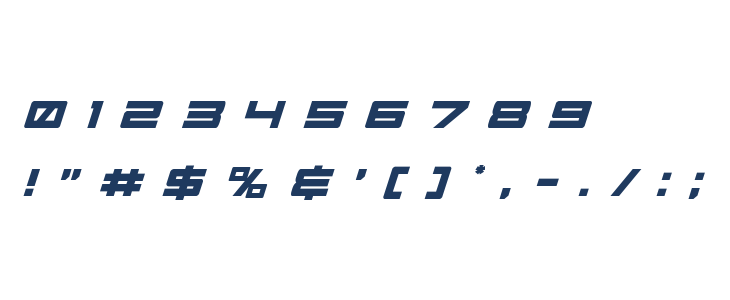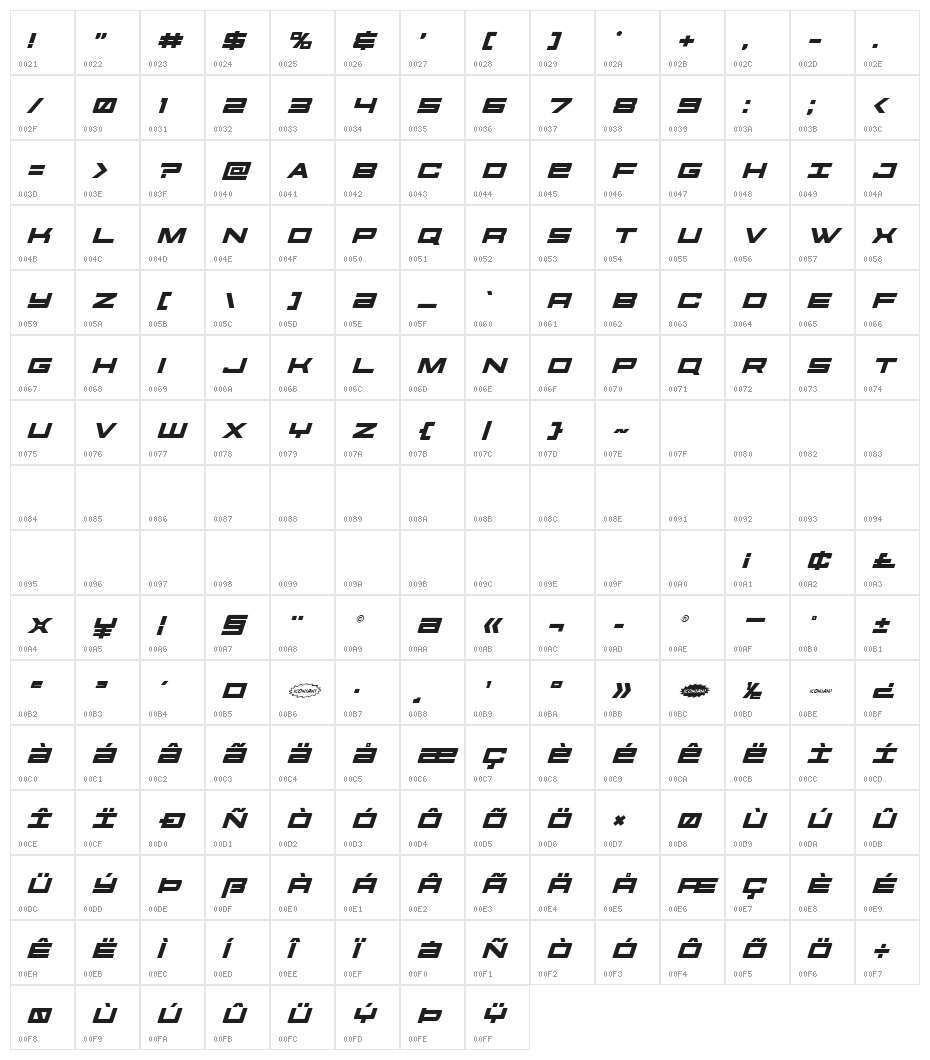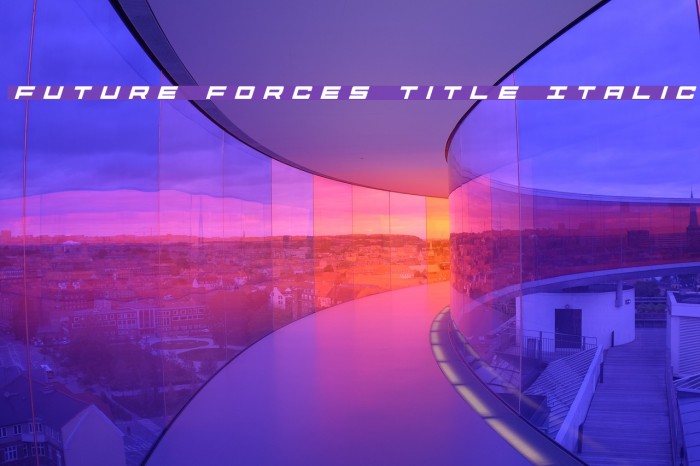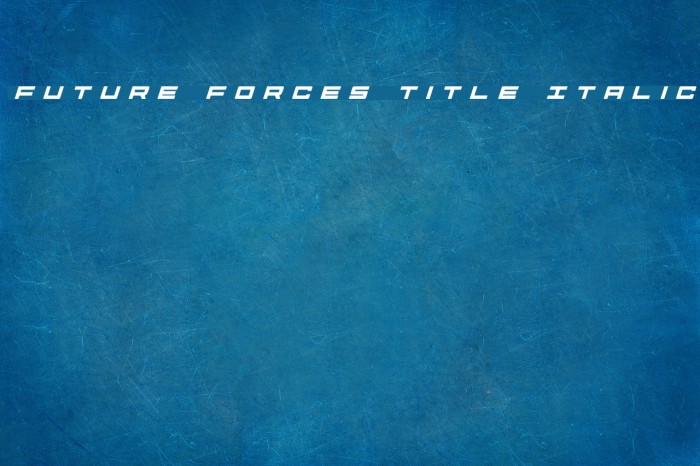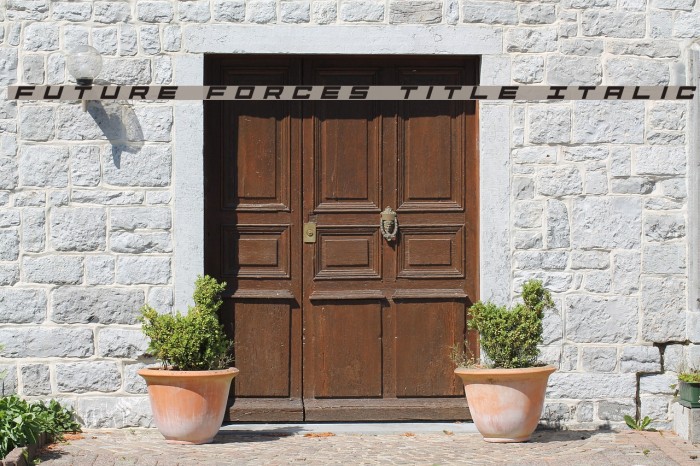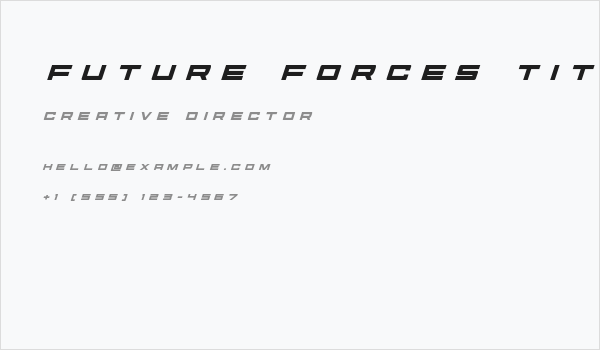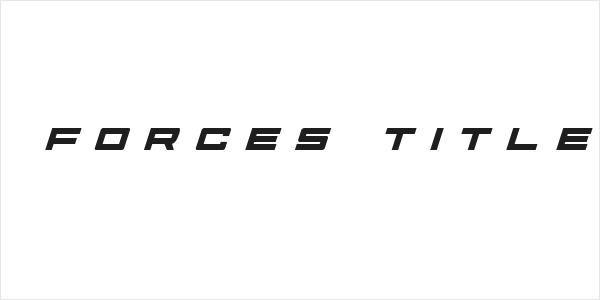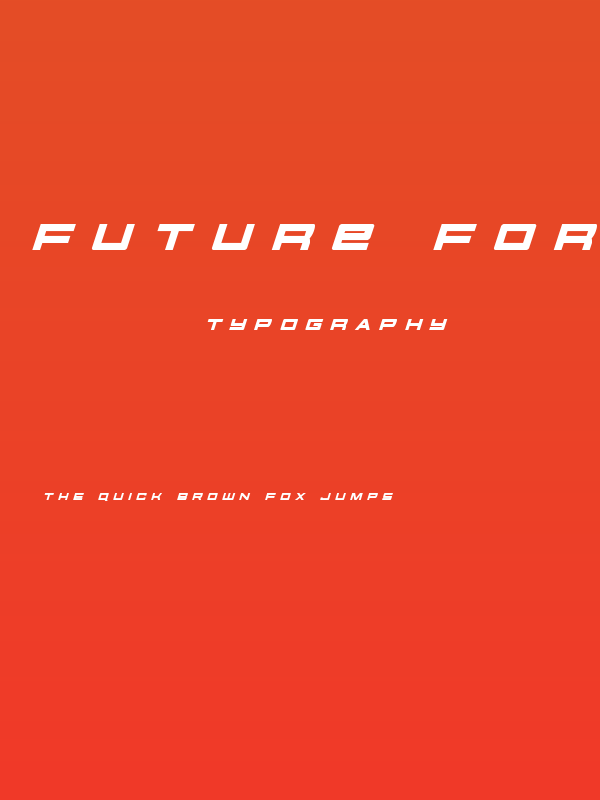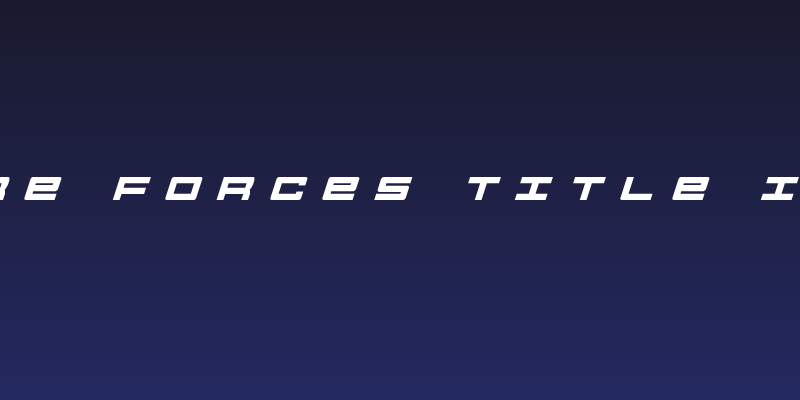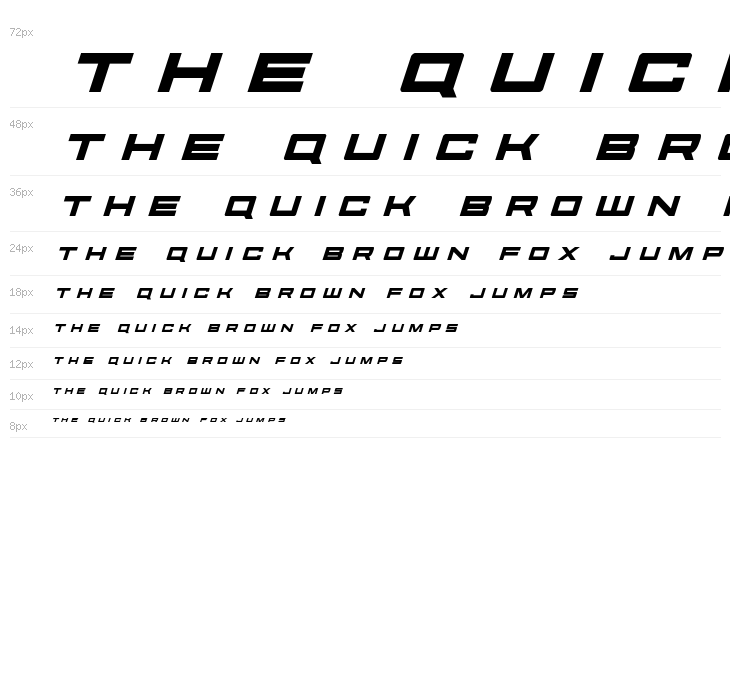
Future Forces Title Italic Font
Future Forces Title Italic Description
This font features a futuristic and dynamic design, characterized by its italicized and angular letterforms. The characters are bold and slightly condensed, giving a sense of speed and modernity. The sharp edges and geometric shapes contribute to a high-tech appearance, making it suitable for projects that require a cutting-edge look. The numbers and special characters maintain the same stylistic approach, ensuring consistency across all elements. The overall design is sleek and contemporary, ideal for making a strong visual impact.
| Proposed Projects | Ideal for sci-fi themed designs, technology branding, video game titles, and futuristic posters. |